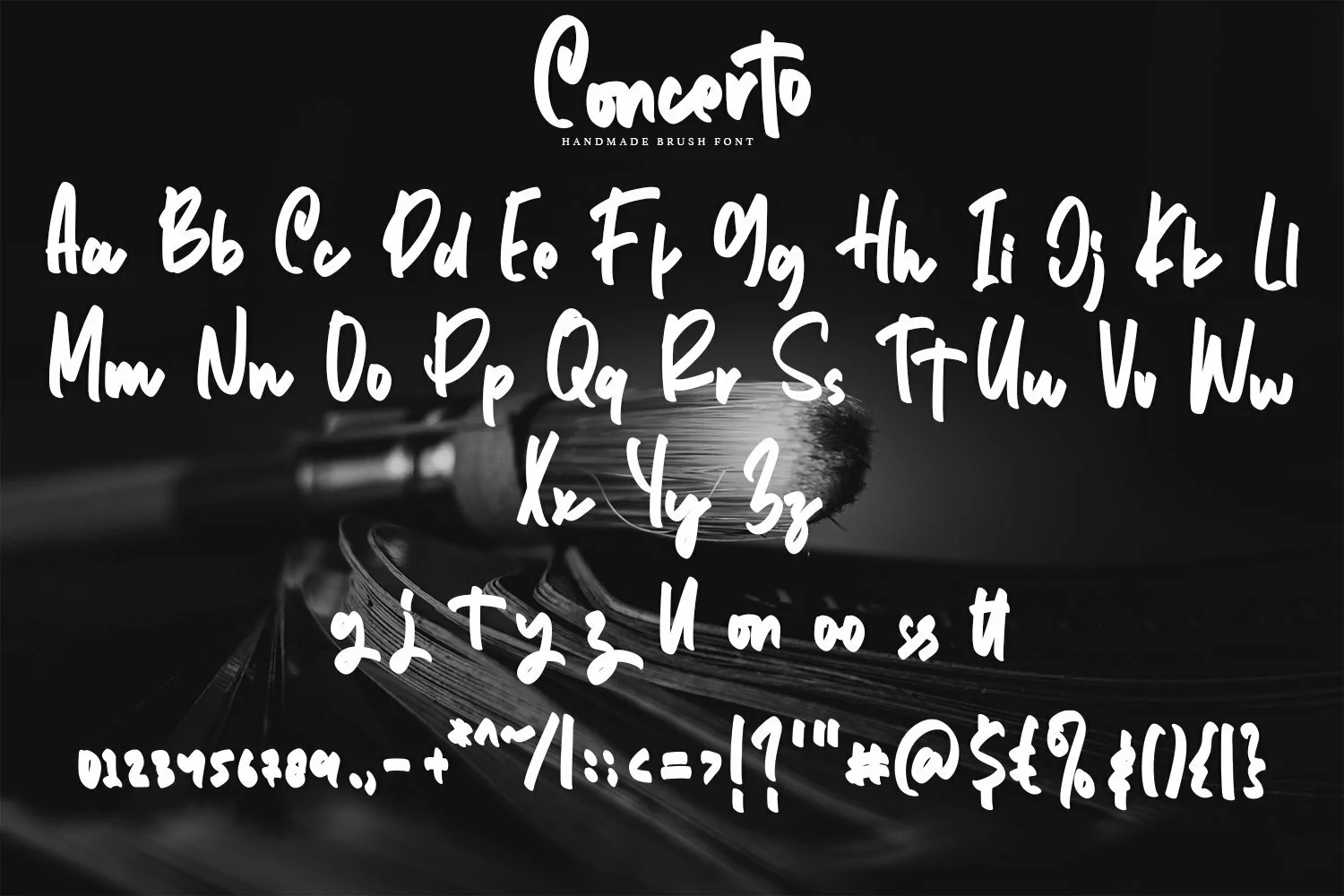
Concerto - Brush Fonts that contain lowercase, uppercase, symbol, and also support multi language. There’s a lot ligatures in this font. This Font also comes with ligatures, alternates and many more. this font suitable for fashion, branding, catalog and other design what you want.